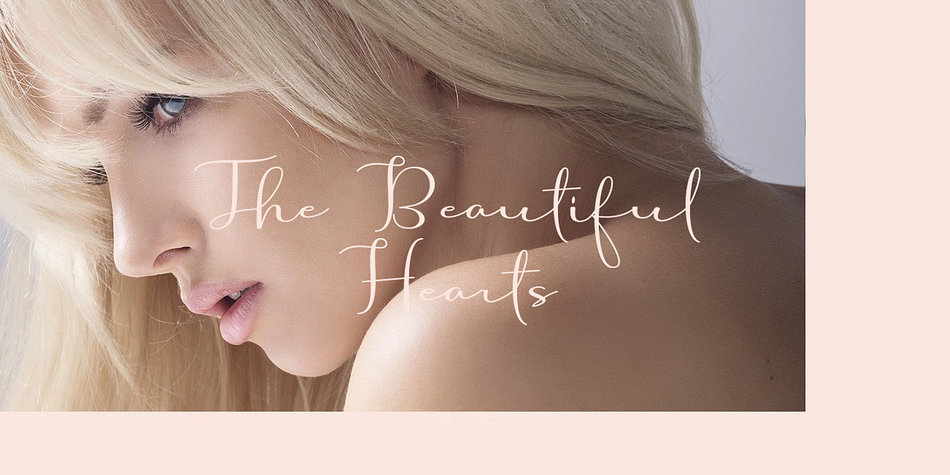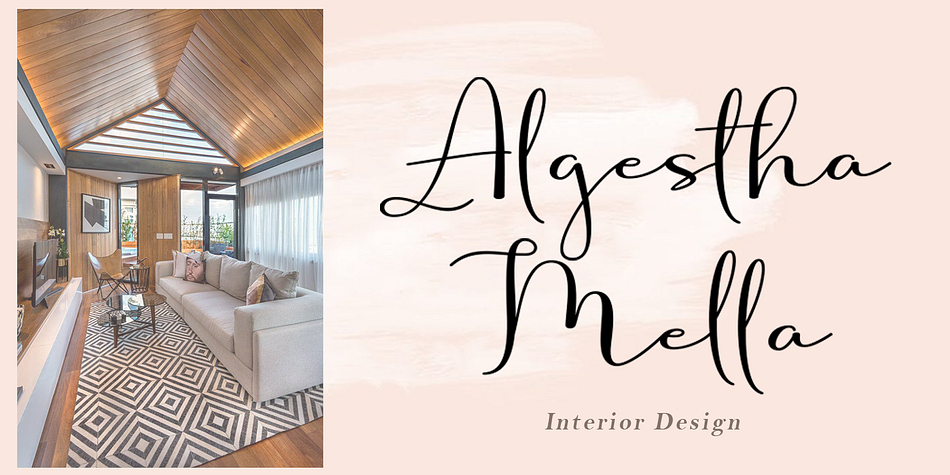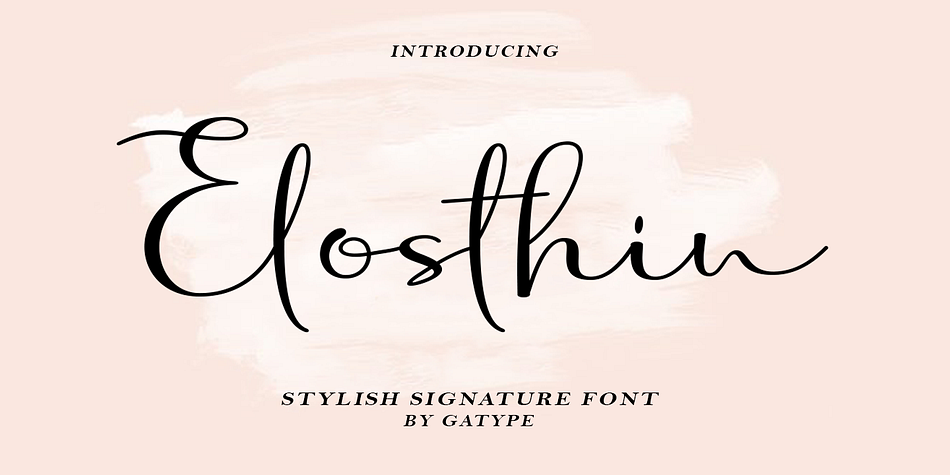
Elosthin
Elosthin is a modern calligraphy font family published by Gatype.
Elosthin is a sweet script typeface with legibility and authenticity. Use it for any design project that requires a personalized look! This font is suitable for use on photography, business cards, weddings, t-shirt designs, logos, magazines, quotes, fashion, watermarks, invitations, signatures.